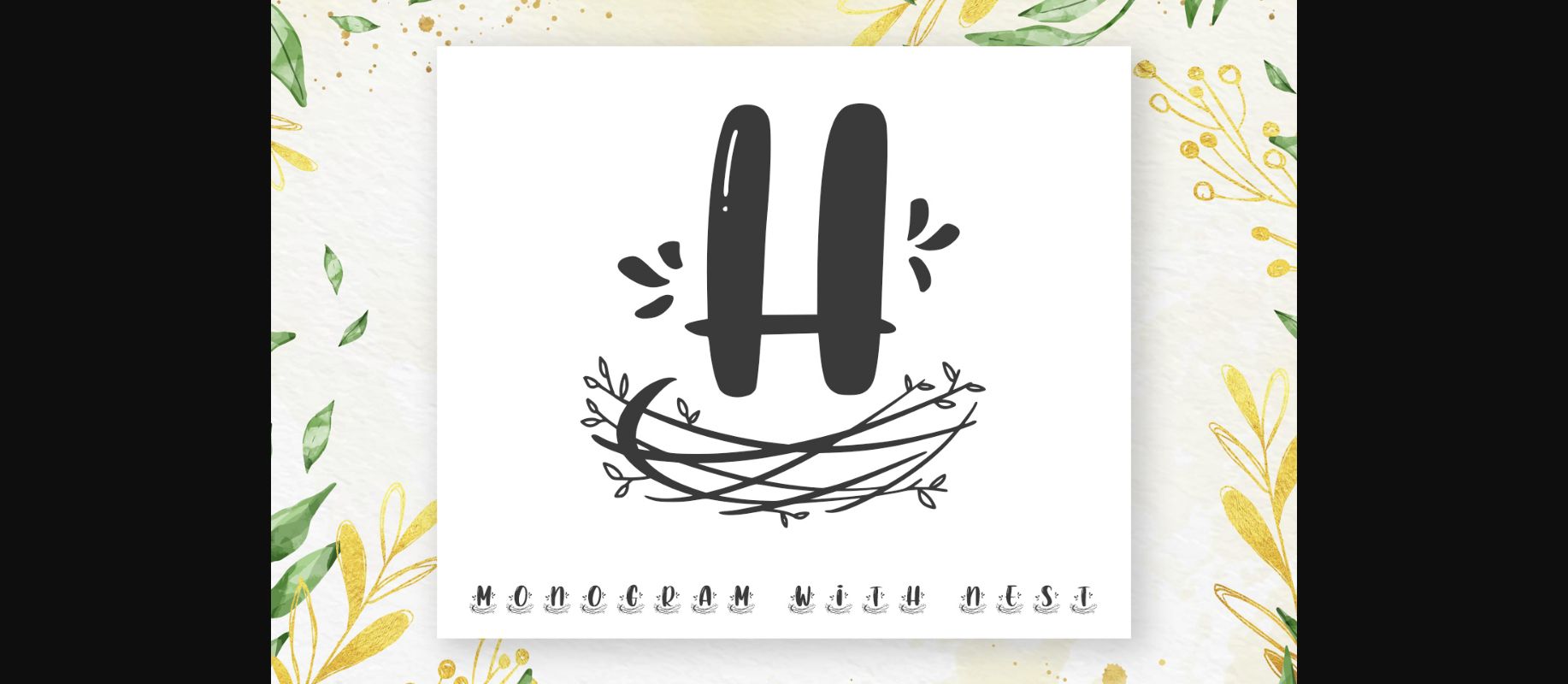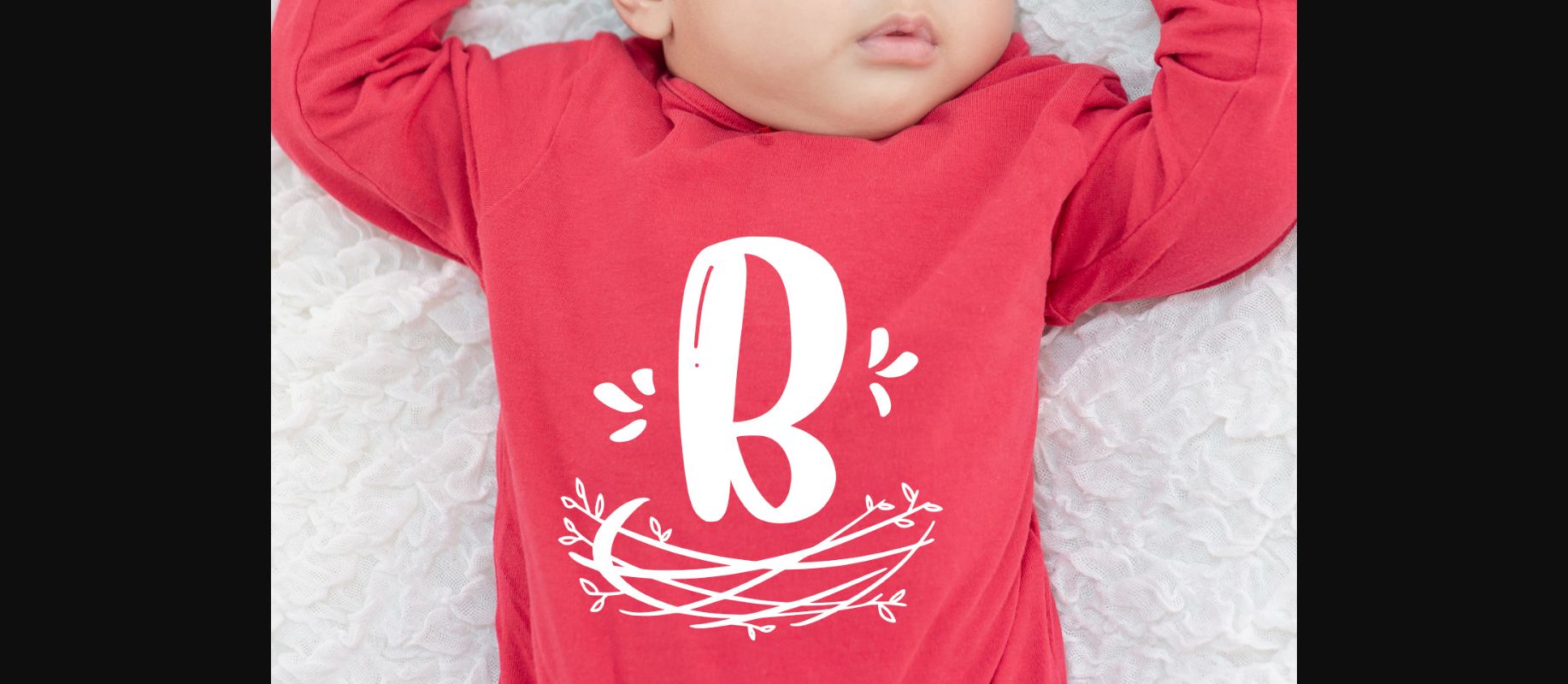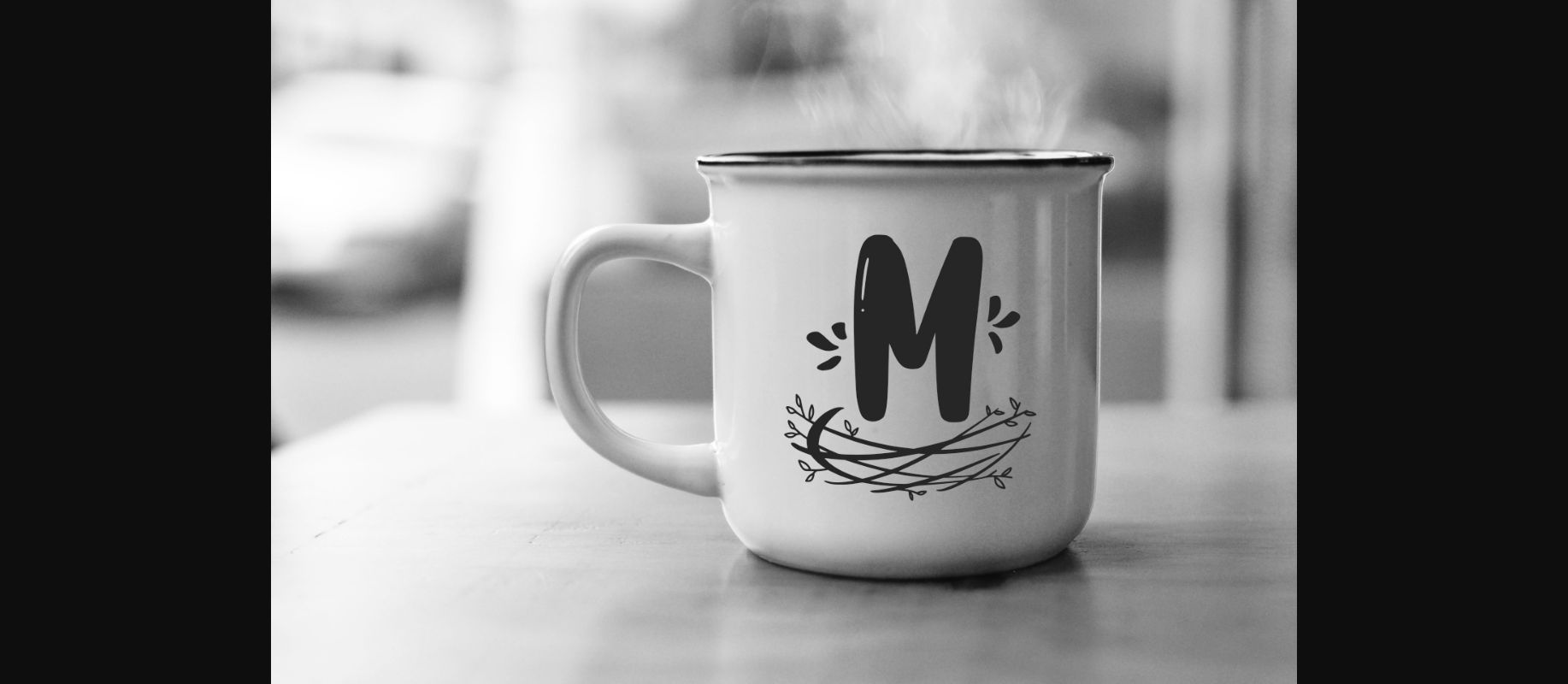
About Nest Monogram Font
Nest Monogram is an incredibly sweet and crafty decorative font, featuring little nests below each character. Add it confidently to your projects, and you will love the results.